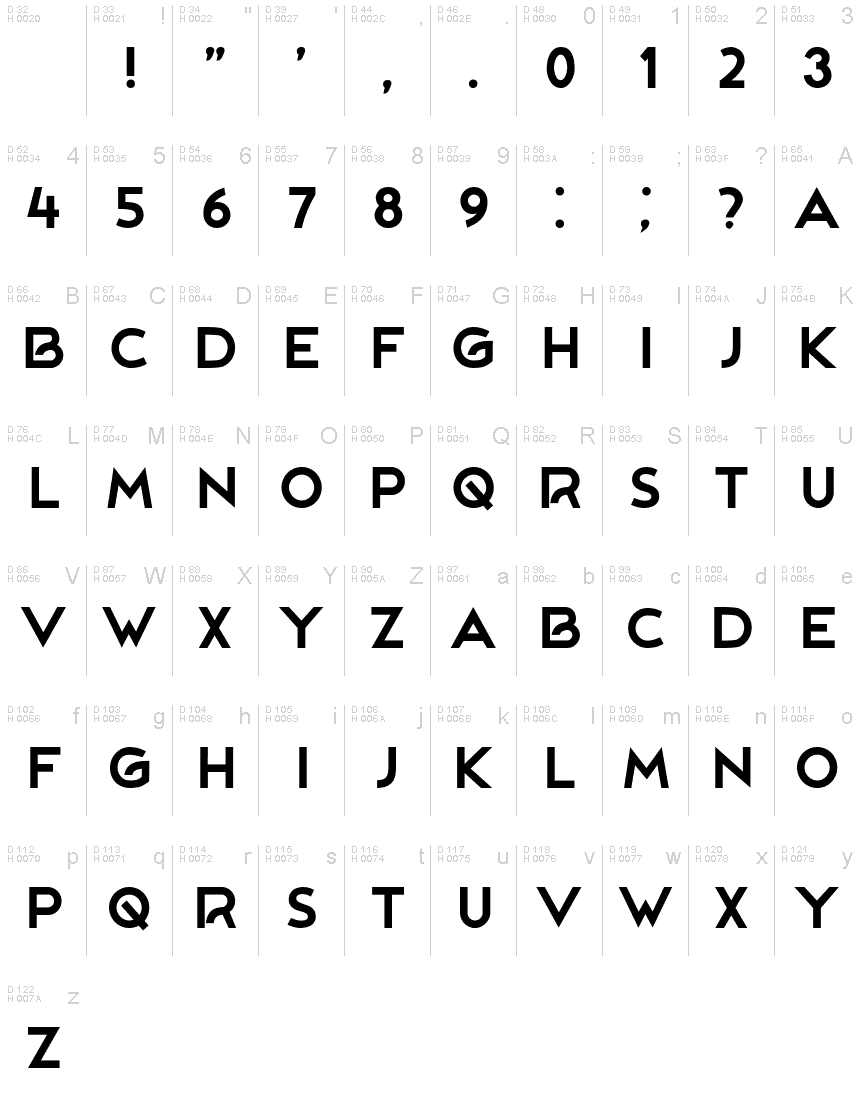
Rollicker Regular
Rollicker is a bold sans-serif font designed by Vladimir Nikolic. With its wide width, this font is perfect for projects that require a strong and confident presence, such as branding, headlines, and posters. Its clean and modern design will make your message stand out and grab attention. Try Rollicker today and see how it can add impact to your designs.